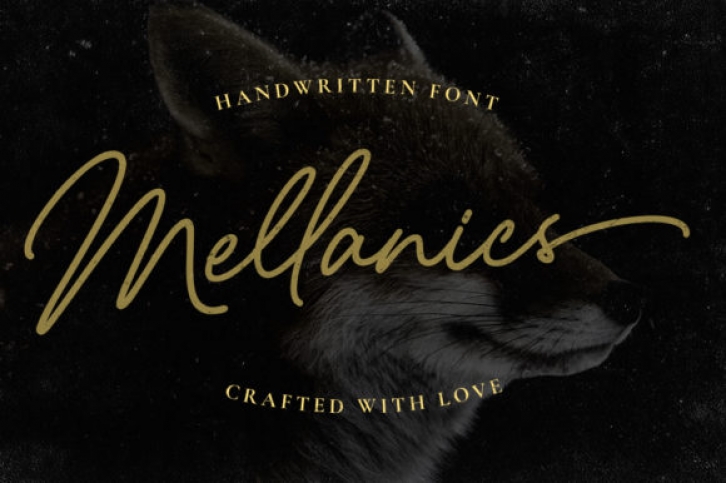
Mellanics is a cute handwritten font. Its casual charm makes it appear wonderfully down-to-earth, readable and, ultimately, incredibly versatile. Mellanics will look outstanding in any context, whether it’s being used on busy backgrounds or as a standalone headline!